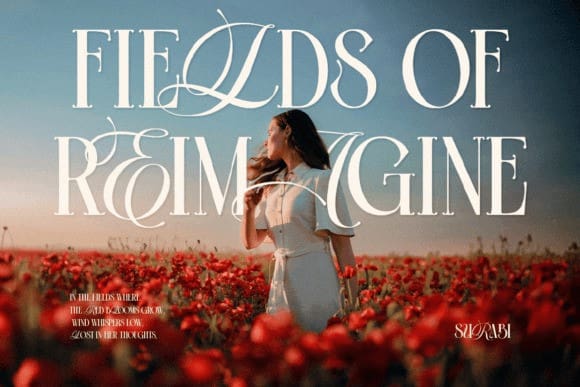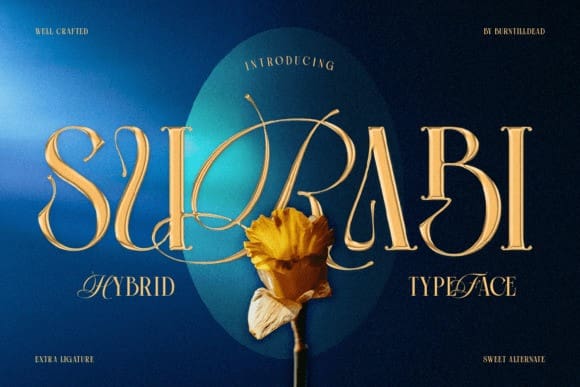
Surabi Font
Surabi Font, hybrid typeface with extra ligature. A perfect blend of the classic serif and the elegance of script. This typeface brings a unique charm and readability to any project. The extra ligatures that seamlessly connect characters, adding a touch of sophistication and fluidity to your text. Ideal for branding, invitation, editorial design and so on.